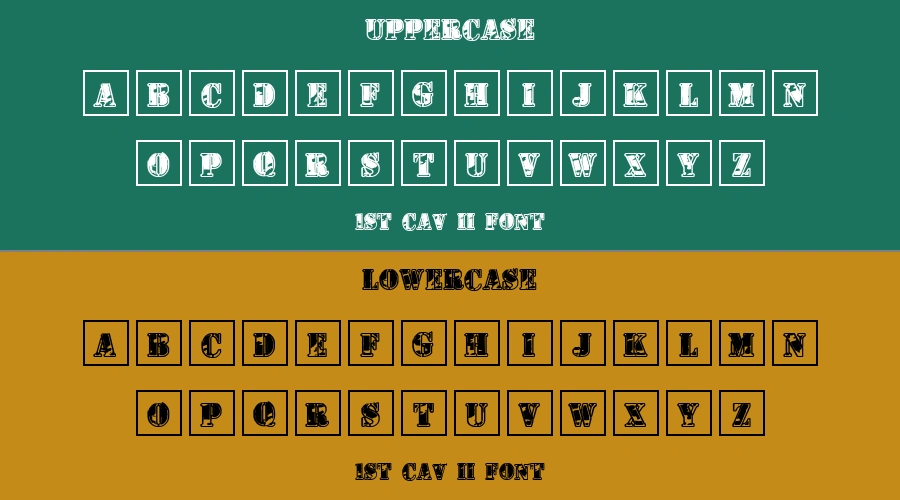
About 1St Cav Ii Font
Designed with precision, 1St Cav Ii Font merges ornamental details with reliability in every character. This versatility makes it particularly effective for logo design, where professionalism and market relevance directly impact communication quality. Each letterform demonstrates meticulous craftsmanship.
Technical excellence shines through elements like decorative alternates and display figures, enhancing typographic versatility. In reference books settings, 1St Cav Ii Font proves its worth through superior language switching. The thoughtful execution of crossbar height and character ensures professional results.